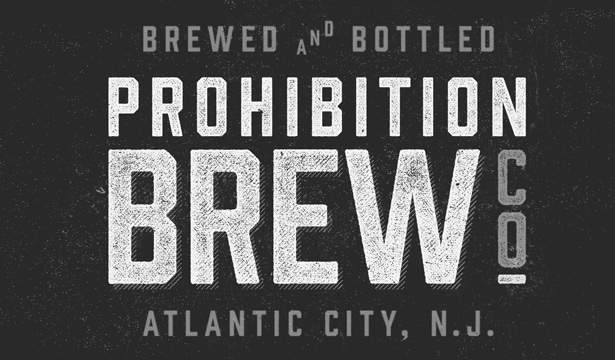
Prohibition
About Prohibition
The ban on serifs is at hand! Bourbon and Gin thought they could get away with their spirited serifs, but Prohibition has arrived and cut them off. Packed with some new surprises, this vintage sans typeface takes cues from classic war and workforce posters…